Questions for Font Creators Part 2: Favorite Kanji Glyph 1
The question “What is your favorite kanji glyph?” was asked to staff at the Type Project.
In this article, we don’t just talk about single glyph mentioned in the answers, we talk about kanji glyphs by radical.
- Kanji with “road” or “advance” radical (“shin nyo radical”):
I like kanji with the “road” or “advance” radical that look solid in block style in particular.
- “冾” (and other kanji with “ice” radical):
I chose this because this is the first kanji I created, and the radical in charge was checked many times by senior designers.
- Sakenotori radical:
I like it because of a peculiarity in the way of naming the radical. Because “hiyominotori” is too chic, I think it is more approachable with “sakenotori.” I have to think about weight adjustment in creation, and I think this is a troublesome radical.
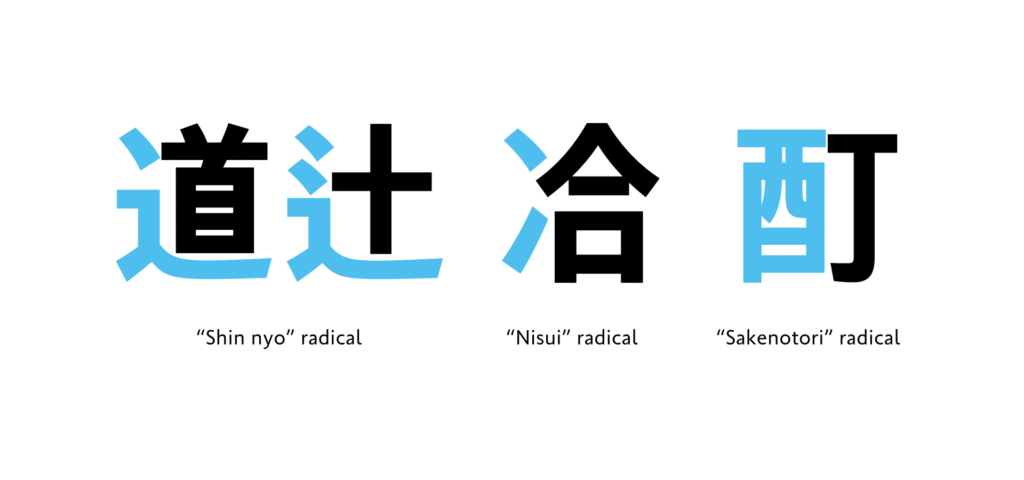
When creating kanji at Type Project, categorization is made by radical for divided work, so the shape of each radical, the impression received from the name, and memories of actual creation may all be factors for designers when looking at kanji.